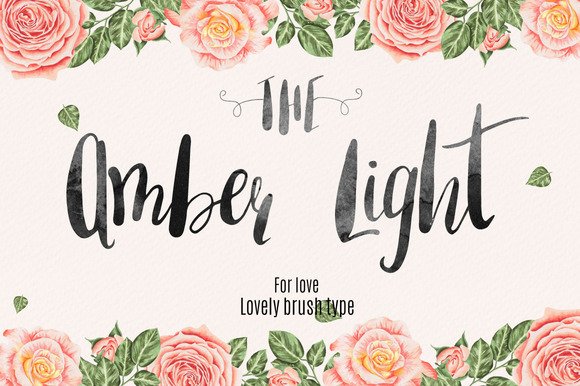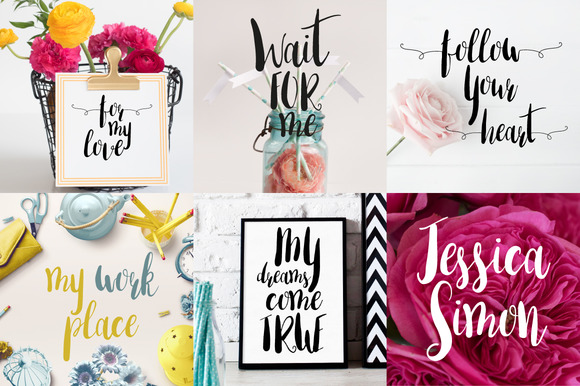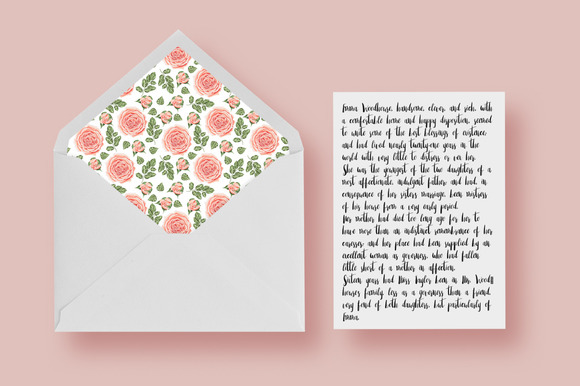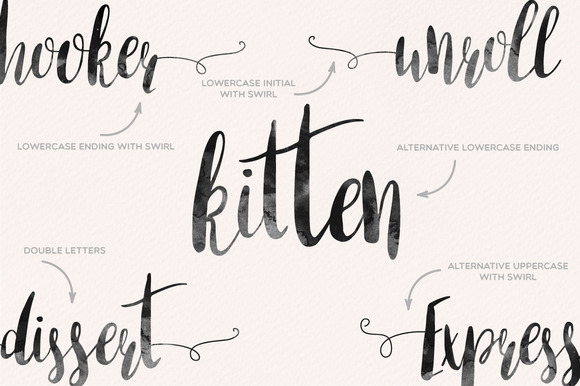
Discover the Warmth of the Amber Light Font
As a designer, there’s nothing quite like that moment when a font clicks – and you know you’ve found the perfect fit for your project. It’s a feeling of excitement and relief all mixed together. For me, that moment happened when I stumbled upon the Amber Light Font. This lovely hand-lettered and modern script font is more than just a pretty face – it’s a versatile tool that can elevate any design from basic to breathtaking.
The Amber Light Font is perfect for a wide range of projects, from posters and t-shirts to letterheads and logo designs. Its classic feel makes it a valuable addition to any designer’s toolkit, and its modern twist keeps it feeling fresh and relevant. Whether you’re working on a wedding invitation, a birthday card, or a brand identity, the Amber Light Font is sure to add a touch of warmth and sophistication to your design.
Amber Light Font Key Features
- Unique Characteristics: Amber Light features a unique blend of modern and vintage elements, with intricate details and ornate flourishes that add a touch of sophistication and elegance to any design.
Amber Light Font Review
As a designer, I was excited to dive into the Amber Light Font and see if it would be a great addition to my design toolkit. Here’s my honest review!
- The font has a unique, hand-drawn aesthetic that adds a touch of warmth and personality to any design.
- The letterforms are well-balanced and easy to read, making it suitable for a wide range of applications, from body text to headlines.
- The font is highly customizable, with a range of weights and styles to choose from, allowing designers to tailor the look to their specific needs.
- The font may not be suitable for highly technical or formal designs, as the hand-drawn feel may not be taken seriously in these contexts.
- The font may require additional spacing or adjustments to ensure proper legibility, especially in smaller sizes.
- The font’s customization options can be overwhelming, making it difficult to choose the right style or weight for a specific project.
Overall, I think the Amber Light Font is a great choice for designers looking to add a touch of warmth and personality to their designs. While it may have some limitations, its unique aesthetic and high customizability make it a versatile and valuable tool in any designer’s toolkit.
Use the Amber Light Font for:
1. Creating eye-catching headlines and titles.
2. Adding a touch of elegance to your designs.
3. Creating a cohesive brand identity.
For best results, use the Amber Light Font in conjunction with a neutral background color and bold typography.
Alternatives to Amber Light Font for Designers
Pacifico is a beautiful, elegant script font that is perfect for adding a touch of sophistication to your designs. It’s ideal for use in headings, titles, and other areas where you want to create a sense of luxury and refinement.
Compared to Amber Light Font, Pacifico has a more refined and polished feel, making it a great choice for high-end designs. While Amber Light Font has a more vintage, distressed look, Pacifico is sleek and modern.